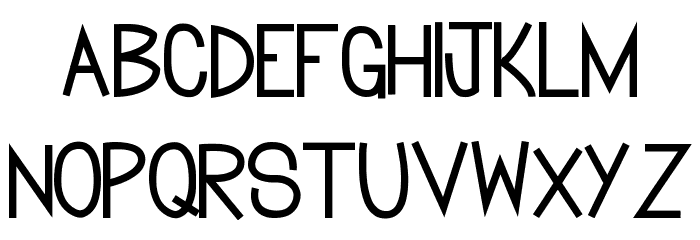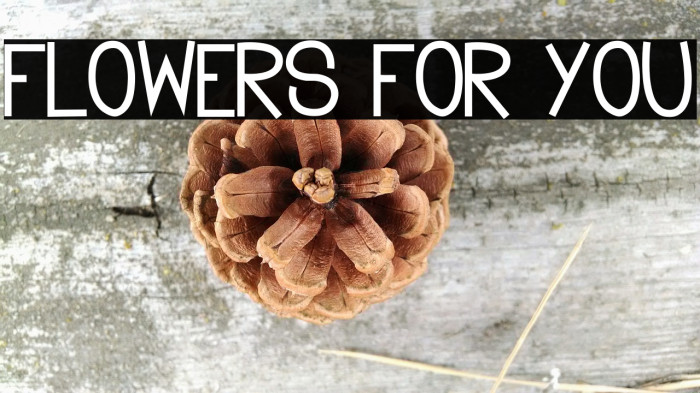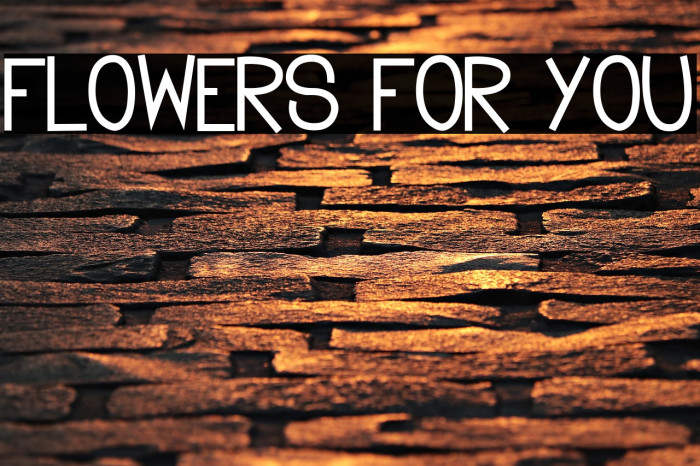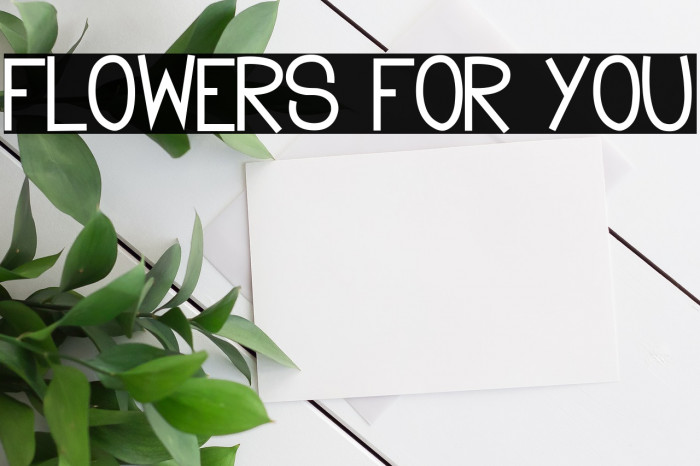
Flowers for you Font
This font features a playful and modern design with clean lines and a slightly whimsical touch. The characters are tall and narrow, giving it a unique and distinctive appearance. The uppercase letters are consistent in height, while the lowercase letters maintain a similar style, ensuring readability. The font's geometric shapes and uniform stroke width contribute to its contemporary feel. It is well-suited for creative projects that require a touch of fun and elegance.
A playful, modern font with tall, narrow characters and clean lines.
- Proposed Projects: Ideal for children's books, playful branding, greeting cards, and creative posters.